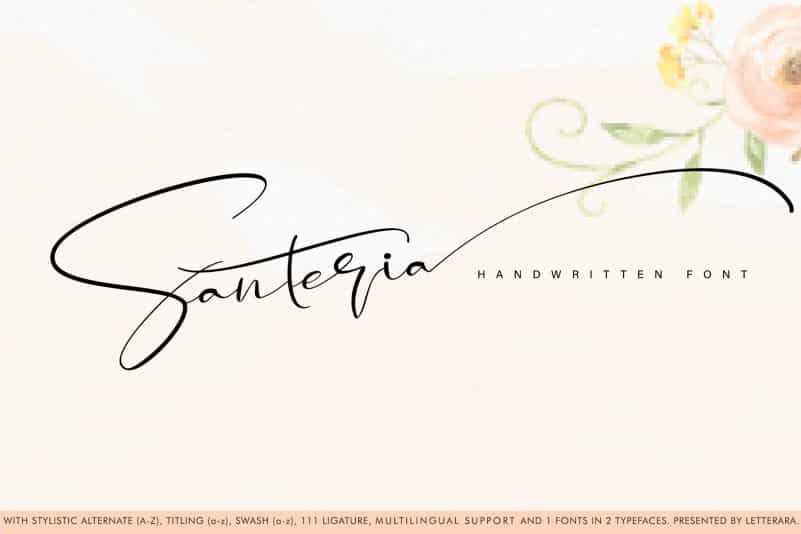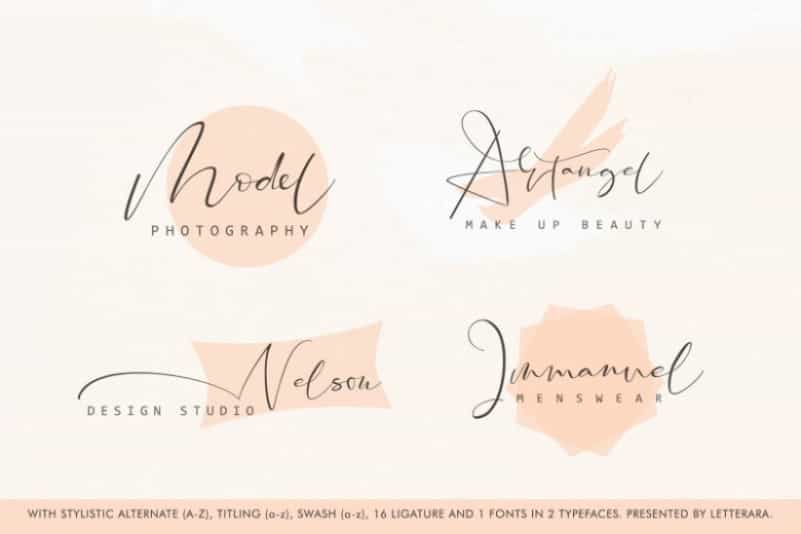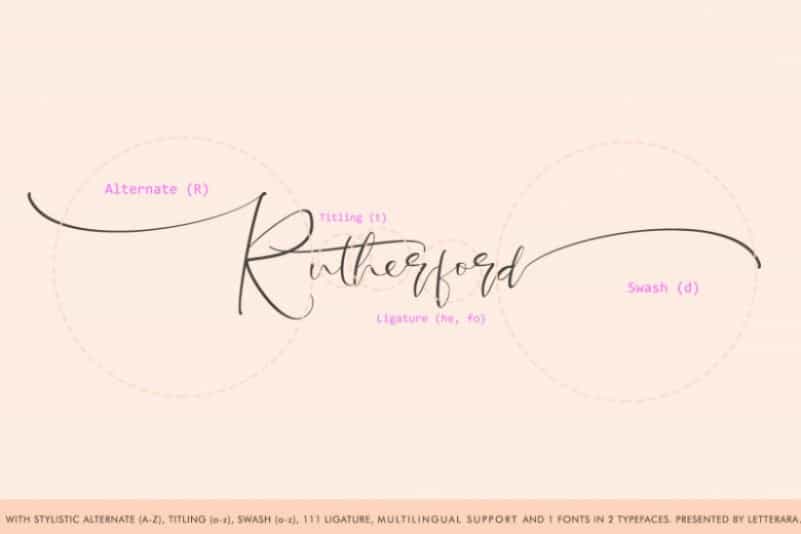
I am very pleased to present you with the new product, Santeria Script Font. Santeria Calligraphy Font is a magnificent calligraphy font. It’s the best option when you want to give a logo, packaging, wedding stationary, website and any other design that needs a handwritten feel an elegant touch. This family consists of 2 styles which are perfectly combined. By this way, you can make multiple different designs at once.